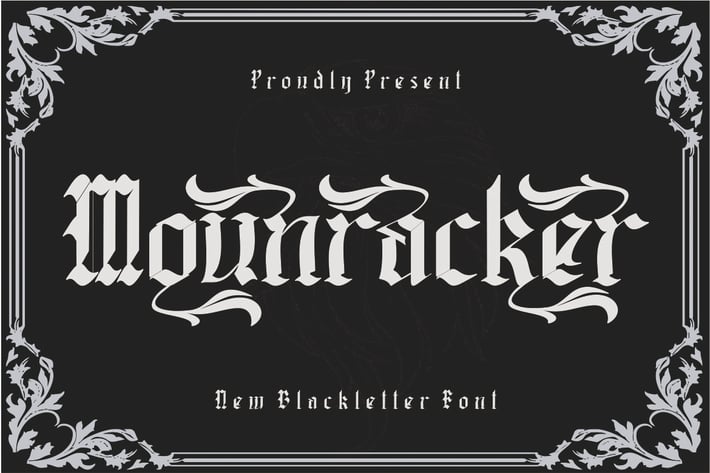
Mounracker - Blackletter Font
Proudly present our new product Mounracker - Blackletter Font
is a modern and authentic font. Perfect for professional needs and product branding, this font is suitable for any branding project such as quotes, logos, blog headers, posters, ribbons, letters, invitations, stationery, etc... Designed to be versatile and flexible that can be used on a variety of projects and media. extraordinary in a variety of contexts.